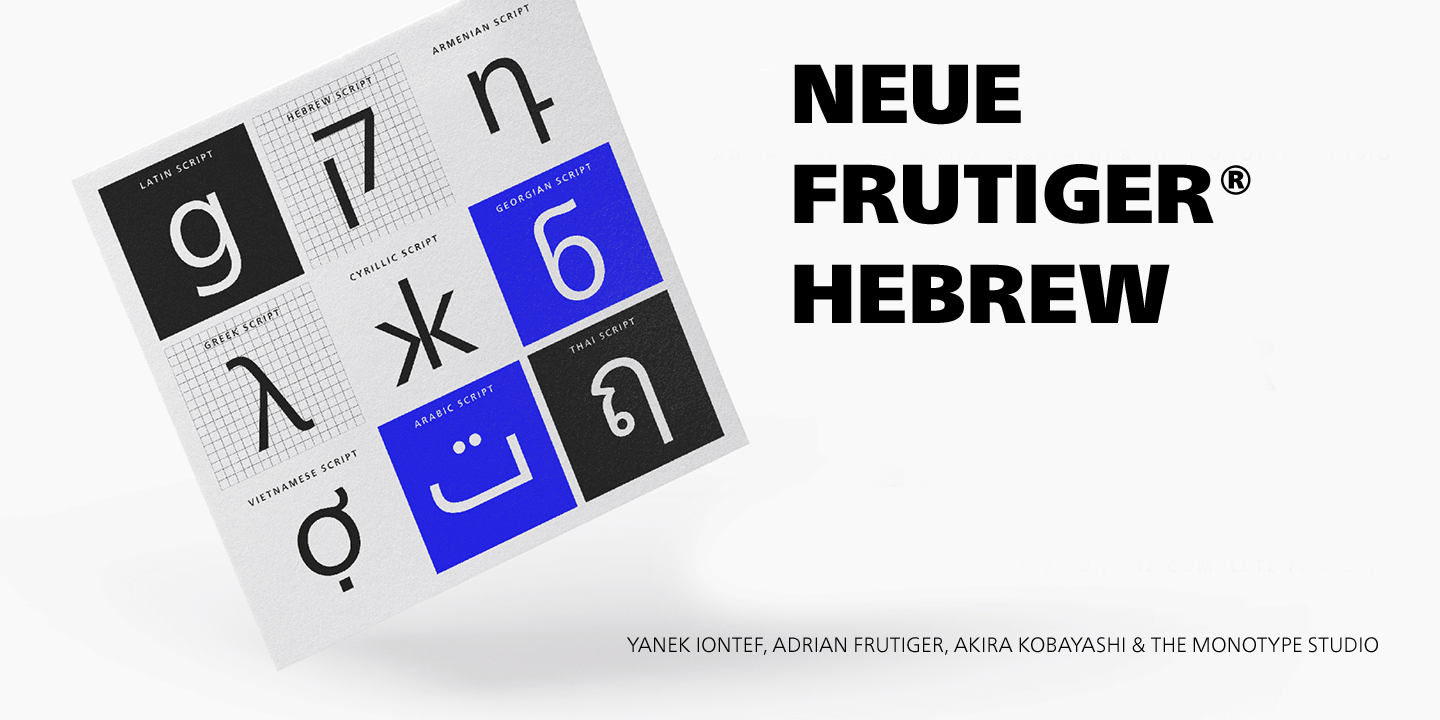
Perfect for multilingual publications, Hebrew signage systems, international corporate communications, religious institution materials, Israeli business branding, cultural heritage projects, educational Hebrew texts, and cross-cultural design applications.
This font is exciting because it seamlessly bridges Hebrew script tradition with Swiss typographic excellence, creating letterforms that honor ancient Hebrew calligraphy while delivering the clarity and functionality demanded by modern international communication standards.
Bridge ancient tradition with modern excellence using Neue Frutiger Hebrew Font Free Download, a masterfully crafted typeface that represents the perfect fusion of Hebrew script heritage and Swiss typographic precision. This exceptional font brings the cultural richness of Hebrew letterforms together with the legendary clarity of Frutiger design principles, making it indispensable for organizations requiring authentic Hebrew typography that meets the highest international standards of readability and professional excellence.
Neue Frutiger Hebrew Font features meticulously designed Hebrew letterforms with traditional characteristics and contemporary proportions that honor ancient script traditions while ensuring optimal performance in modern communication environments. The carefully balanced characters combine cultural authenticity with Swiss precision, creating immediate associations with professional competence, cultural respect, and the sophisticated design sensibility that defines successful multilingual communications and international business applications.
The font's remarkable cultural authenticity makes it ideal for international corporations, religious institutions, and cultural organizations where conveying Hebrew linguistic accuracy and professional credibility is essential for effective cross-cultural communication and community engagement. Whether you're designing materials for multinational companies serving Hebrew-speaking markets, creating publications for Jewish cultural institutions preserving heritage traditions, or developing signage systems for Israeli businesses requiring international standards, Neue Frutiger Hebrew Font delivers the authentic Hebrew aesthetic that resonates with discerning audiences expecting both cultural sensitivity and professional excellence.
International communication specialists and Hebrew typography professionals worldwide rely on the Neue Frutiger Hebrew Font Free Download for projects requiring linguistic authenticity and typographic excellence. The font works exceptionally well for educational institutions teaching Hebrew language, publishing houses producing Hebrew literature, technology companies developing Hebrew interfaces, and any organization seeking to establish credible connections with Hebrew-speaking communities while maintaining the highest standards of typographic quality and cultural respect.
The comprehensive Neue Frutiger Hebrew Font family includes multiple weights and variations designed to work harmoniously with Latin characters, enabling multilingual designers to create sophisticated typographic systems for complex international content. Each Hebrew character demonstrates exceptional attention to traditional calligraphic principles while providing complete compatibility with modern design workflows and international publishing standards.
This typeface excels in both traditional Hebrew publishing environments where cultural authenticity is paramount and modern digital applications where Hebrew text must integrate seamlessly with international design systems. The font's technical precision ensures optimal performance across all platforms, from Hebrew prayer books requiring traditional dignity to multilingual websites that must function flawlessly across diverse linguistic and cultural contexts.
Neue Frutiger Hebrew Font's cultural sensitivity enhances the perceived value of Hebrew content while maintaining the contemporary functionality necessary for engaging modern Hebrew-speaking audiences in both religious and secular contexts.